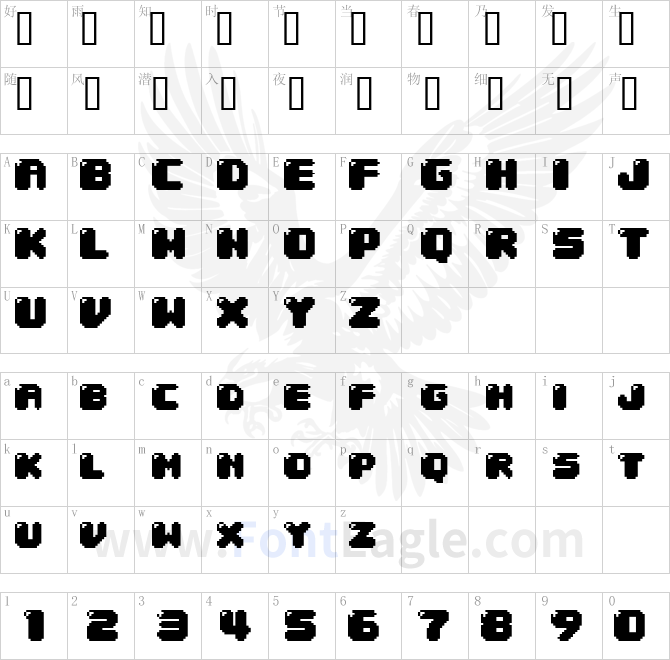
04b-30 is a great font, widely used in graphic design, single-page menu design, poster design and other fields, and is deeply loved by designers.04b-30 download.